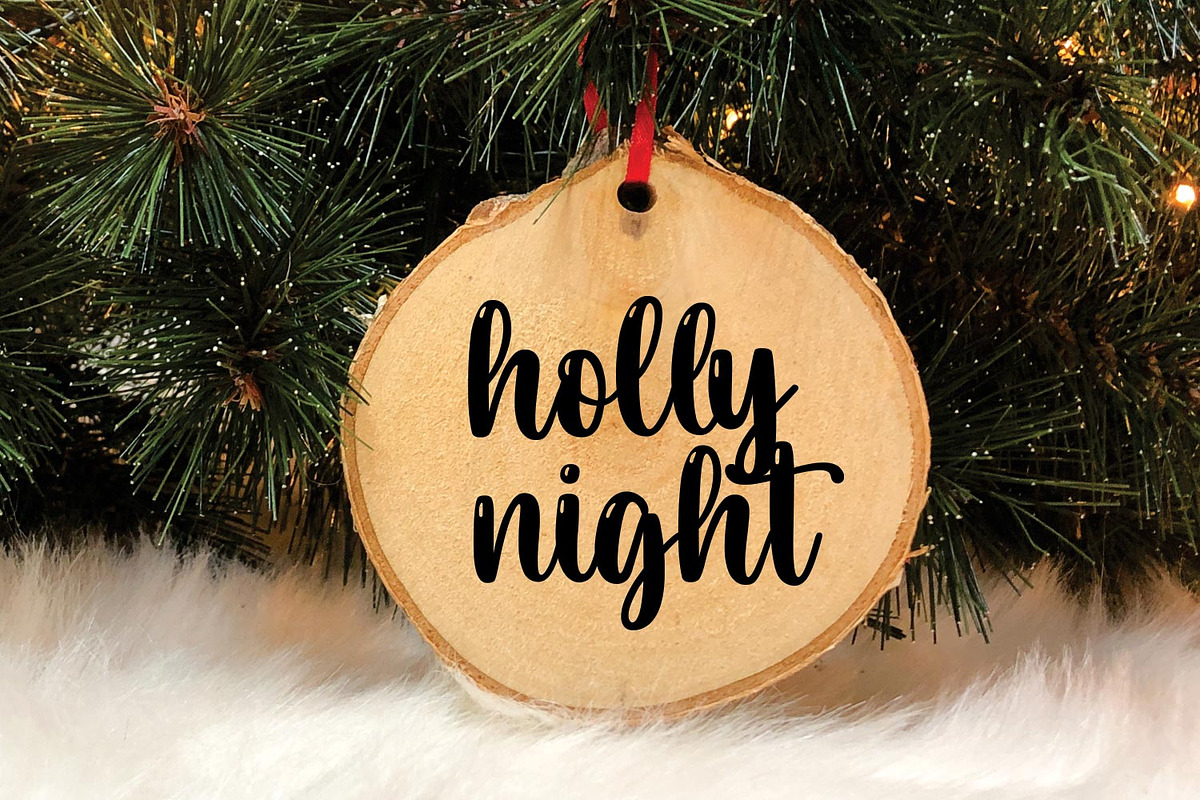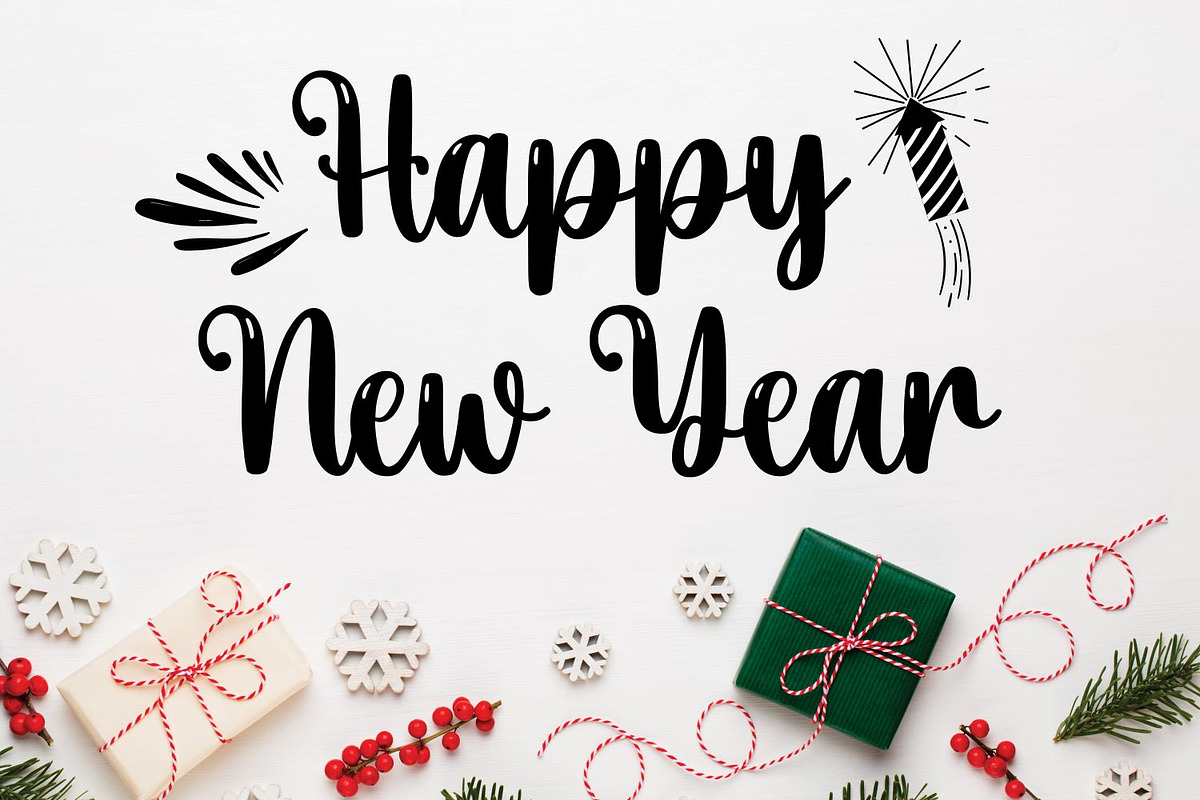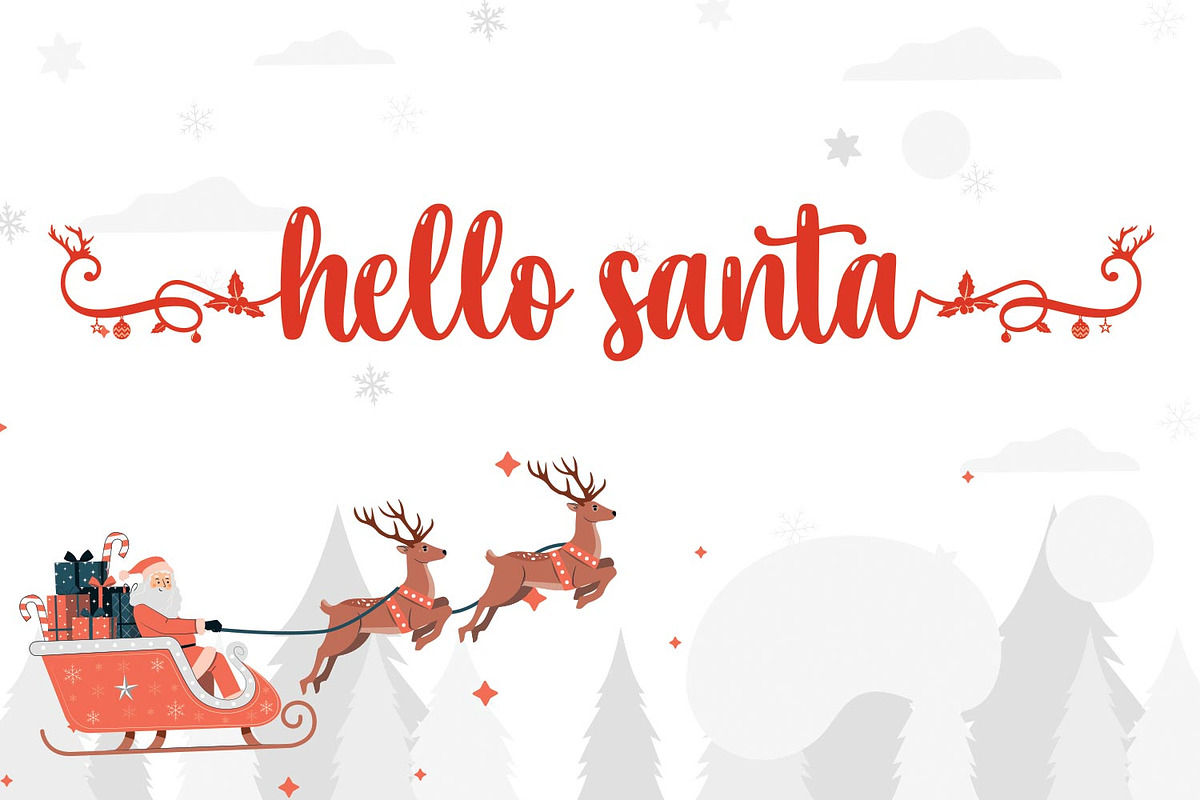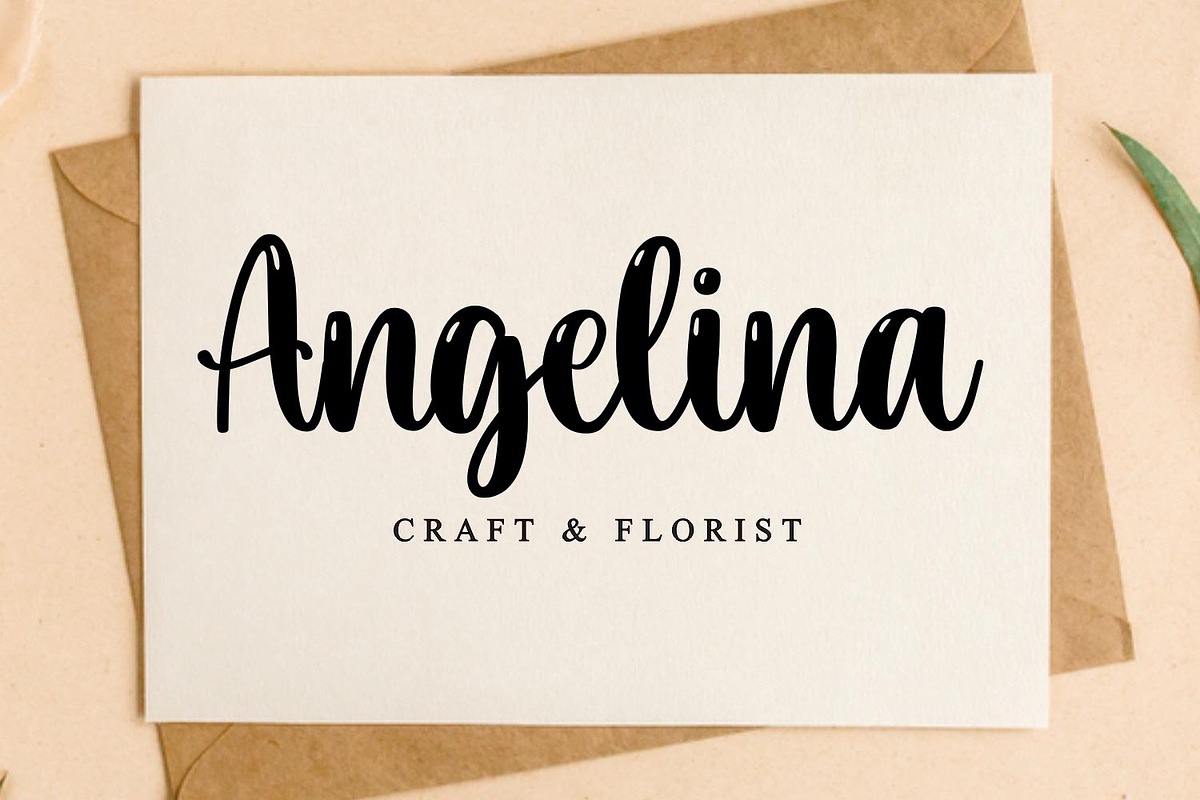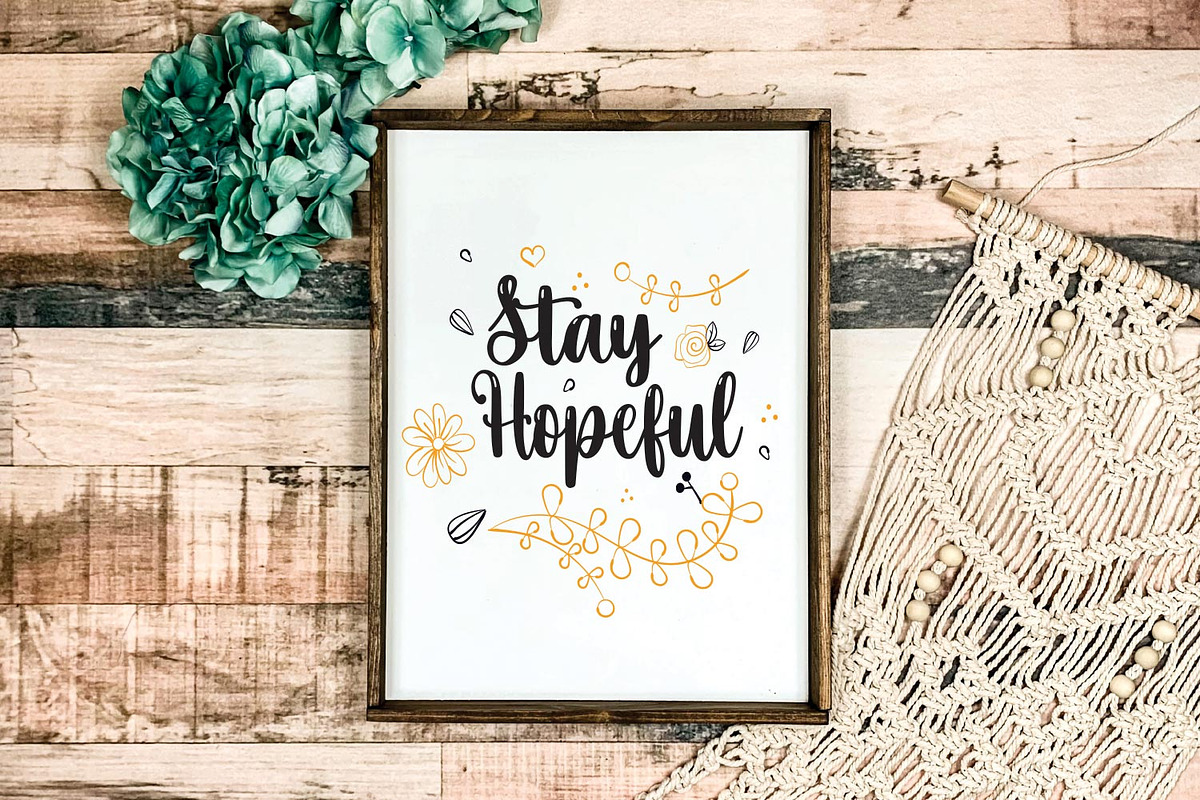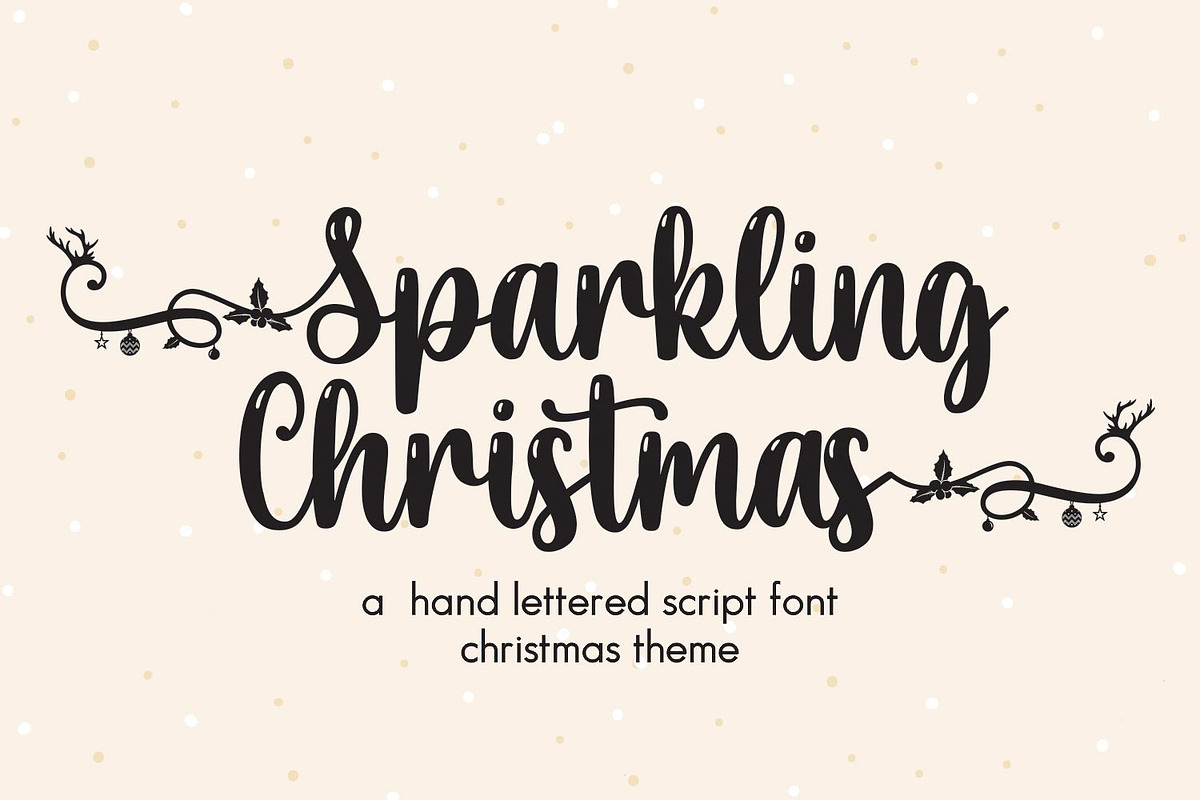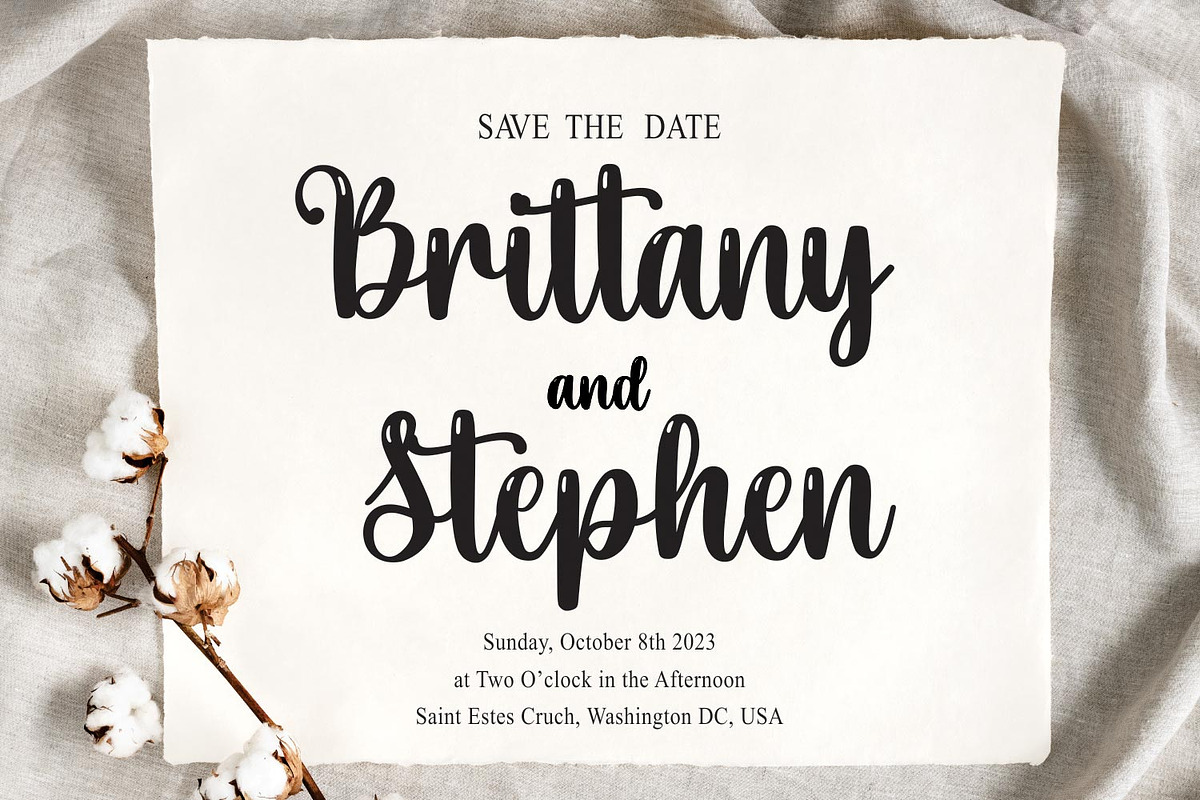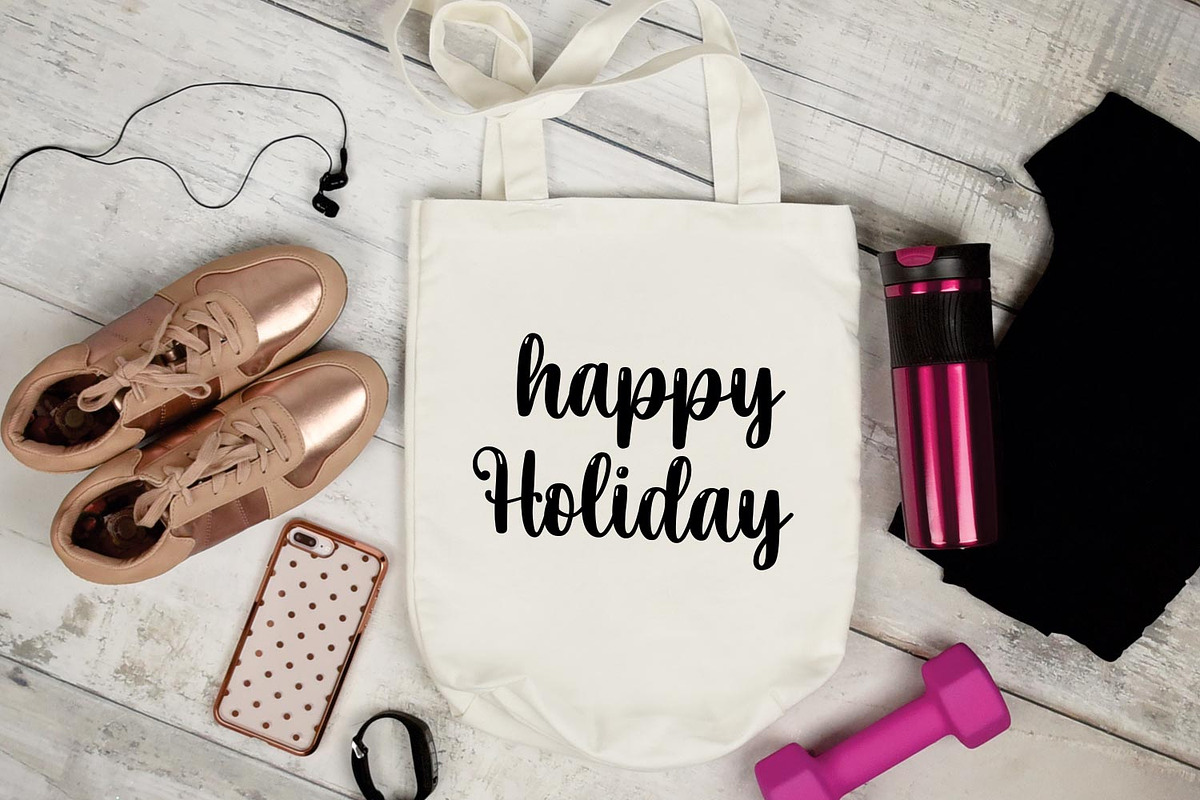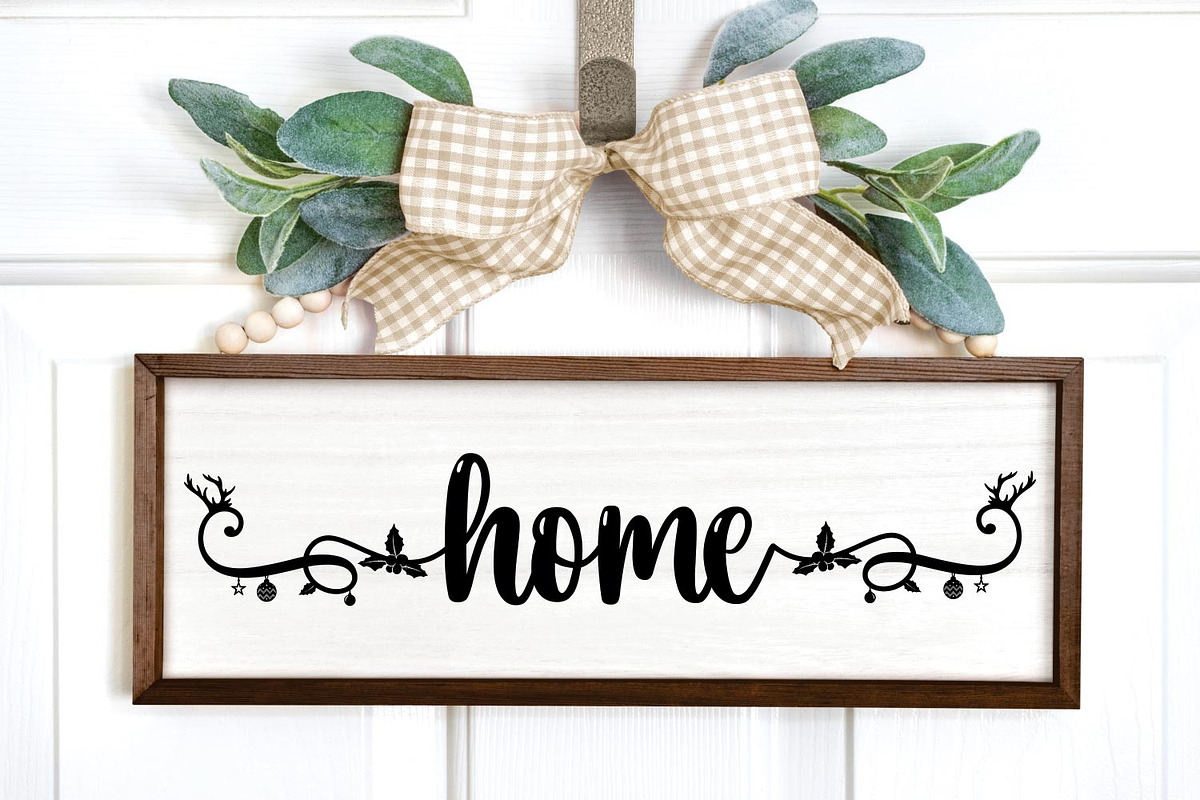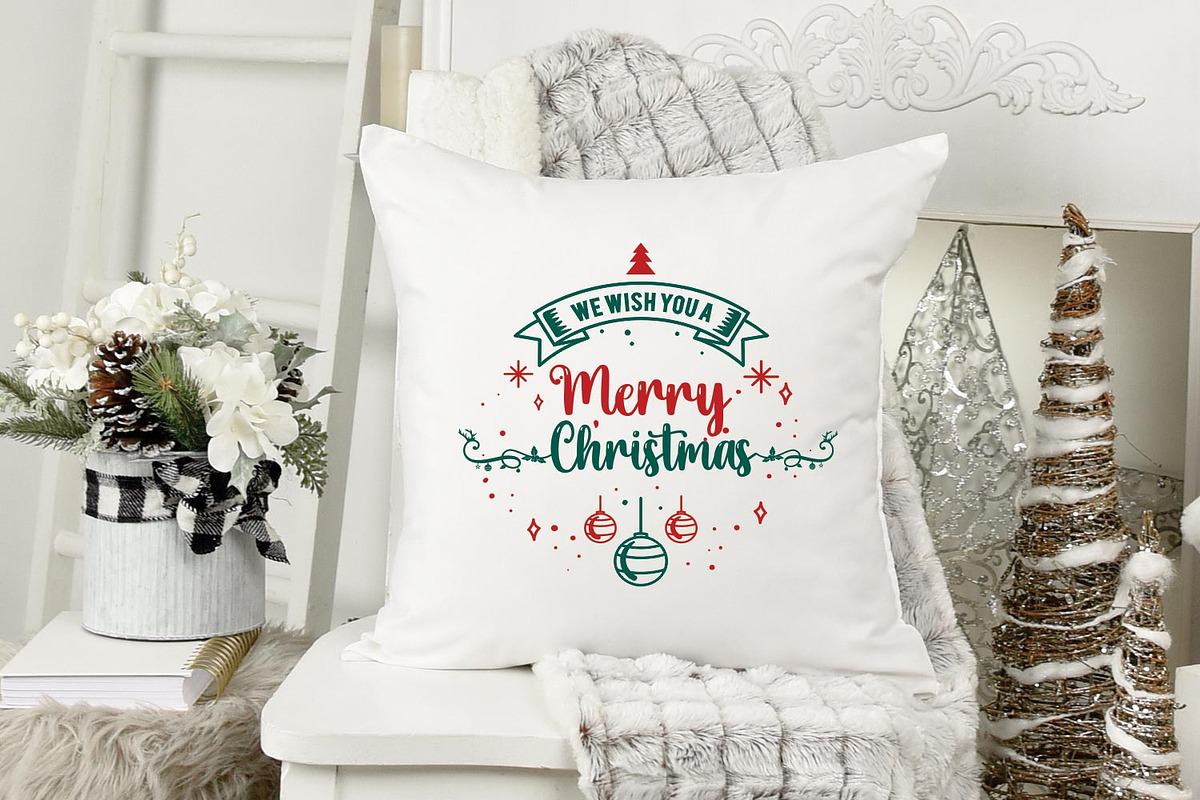
Sparkling Christmas
Sparkling Christmas is a script handwritten font. It is a quirky and natural hand-drawn font. It is a holiday and Christmas theme font
This font is PUA encoded, which means you can easily access all of the glyphs, swashes, and ligatures! Together or apart, these fonts are ideal for adding a chic and cheery touch to your crafts.
This font is ideal for crafting, branding, and decorates your any project. These fonts are perfect for wedding invitations or your blog. Also with their help, you can create a logo or beautiful frame for your home. Or just use it for your business, book covers, stationery, marketing, magazines, and more. Fall in love with its incredibly versatile style and use it to create spectacular designs!
Use this font for any crafting project that requires a personalized look! Masterfully designed to become a true favorite, this font has the potential to bring each of your creative ideas to the highest level!